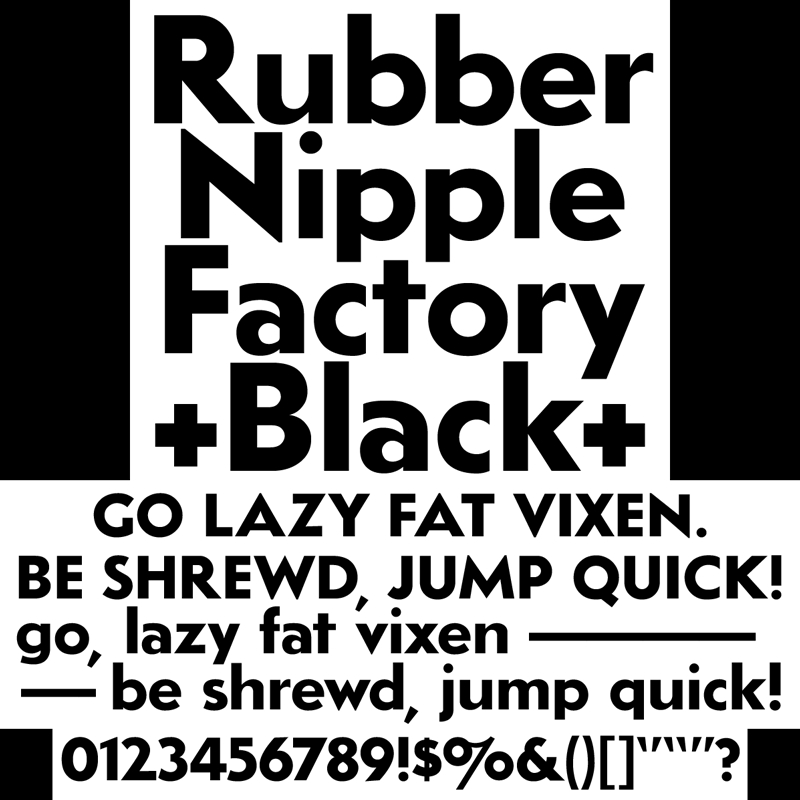
Font name: | Rubber Nipple Factory |
Author: | That Record Got Me High |
Note by That Record Got Me High | |
Lettering used in the signage and ads for a 1930s US company that produced rubber nipples before the invention of latex. |